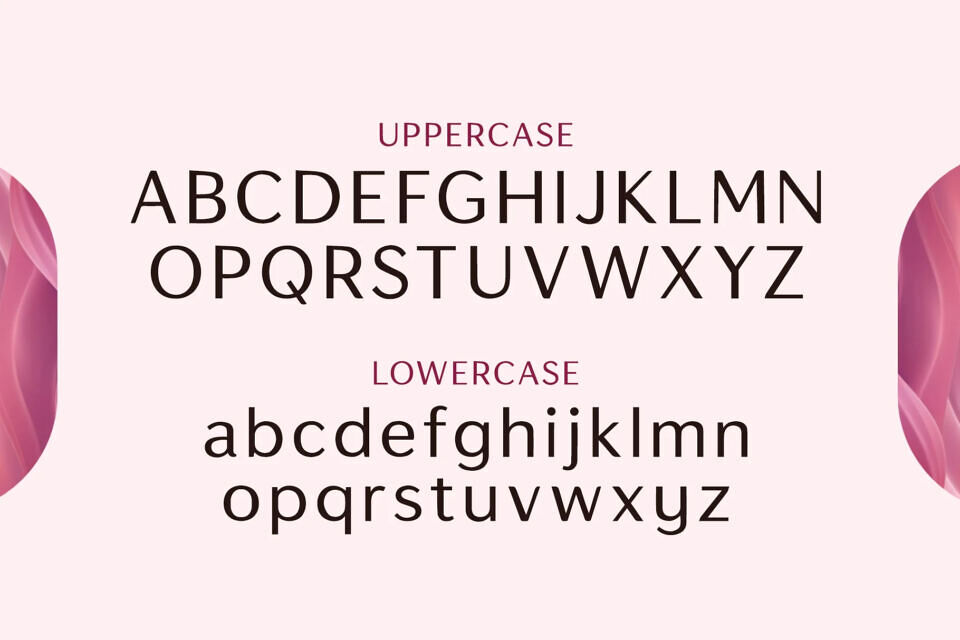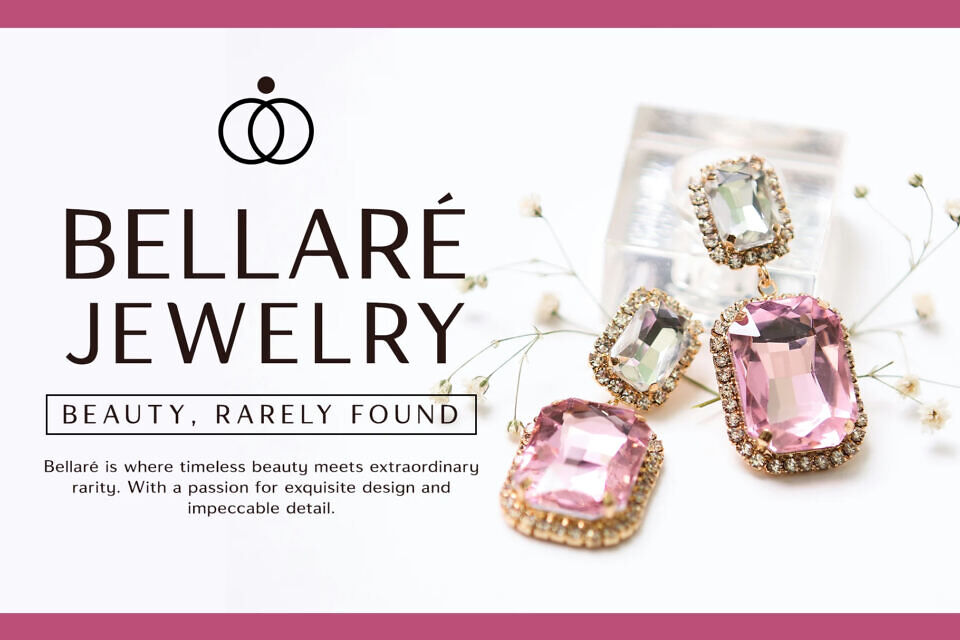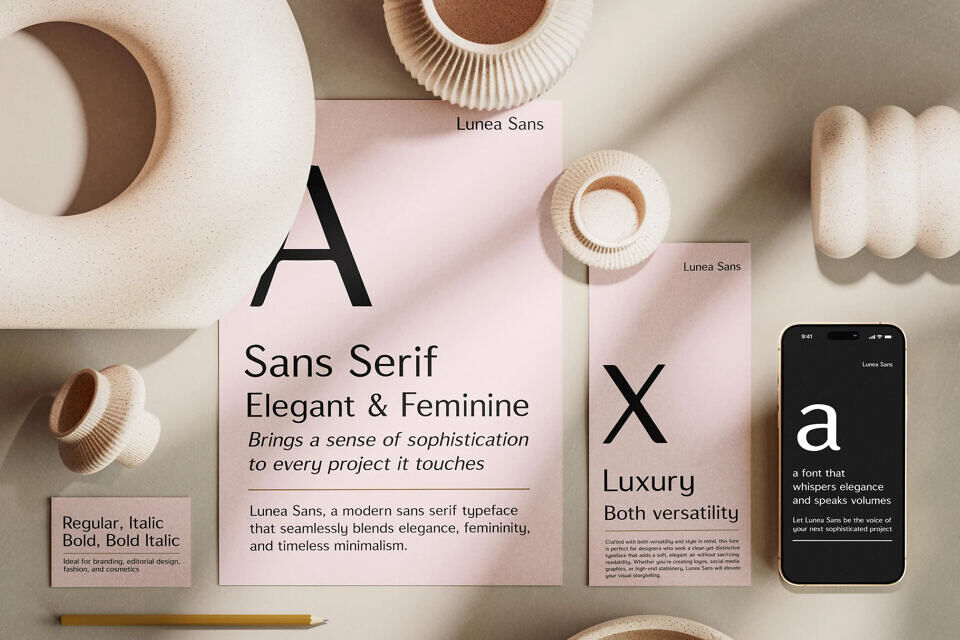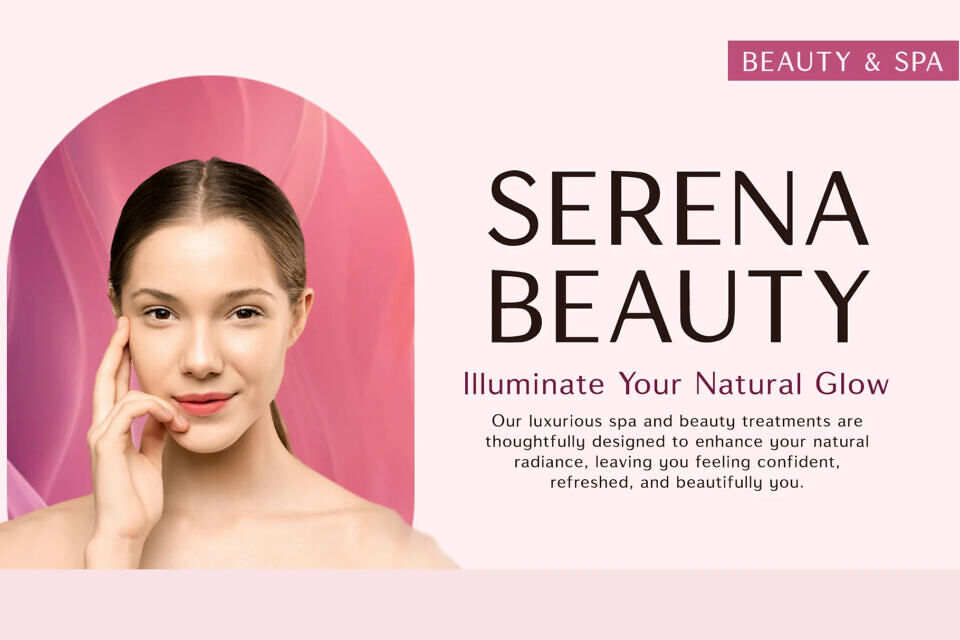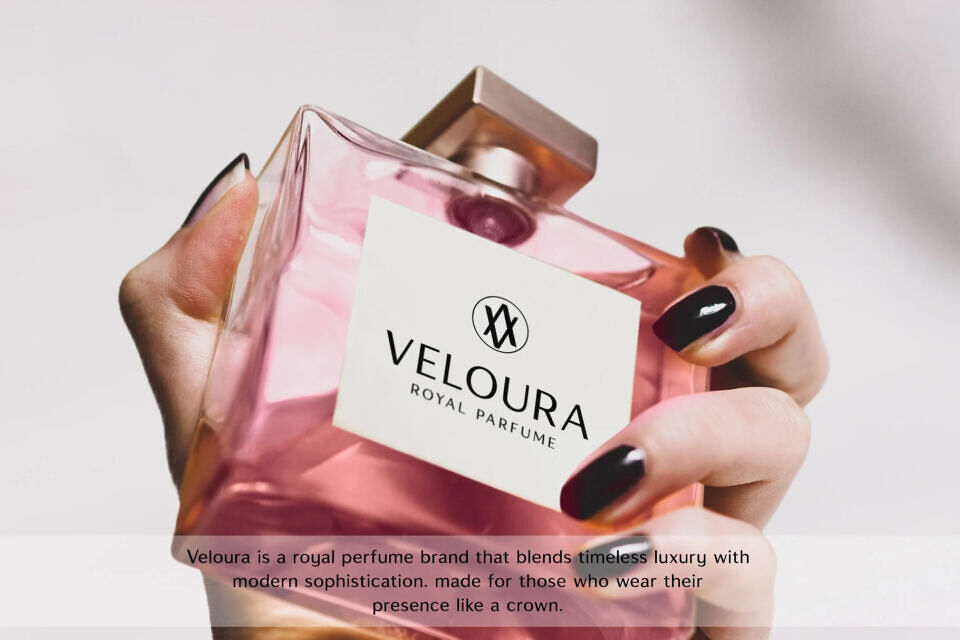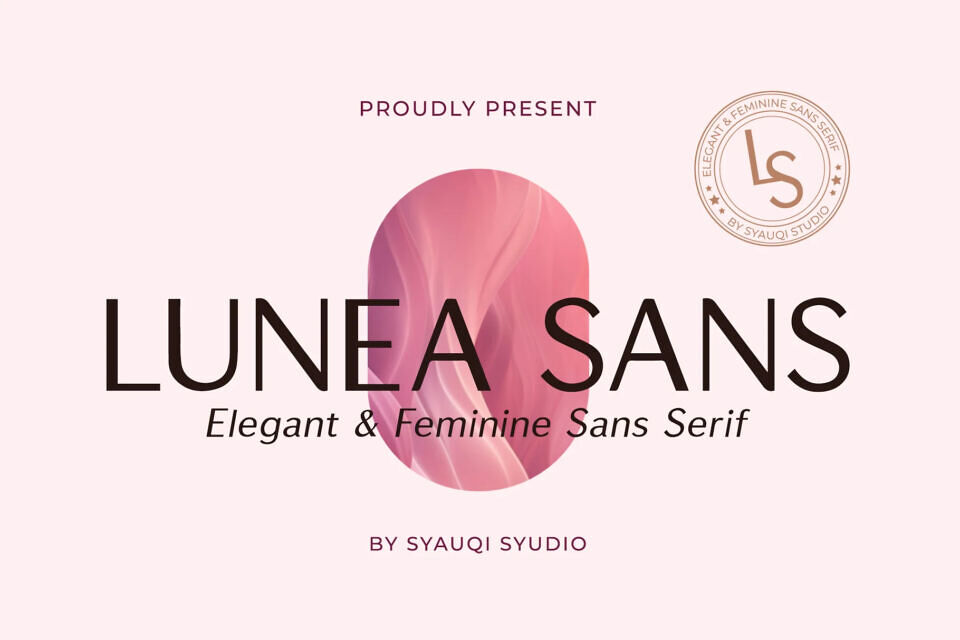
Lunea Sans Font
Lunea Sans is a modern sans serif typeface that seamlessly blends elegance, femininity, and timeless minimalism. Designed with graceful curves and refined proportions, Lunea Sans brings a sense of sophistication to every project it touches, from luxury branding to wedding invitations, editorial layouts, and beauty packaging.